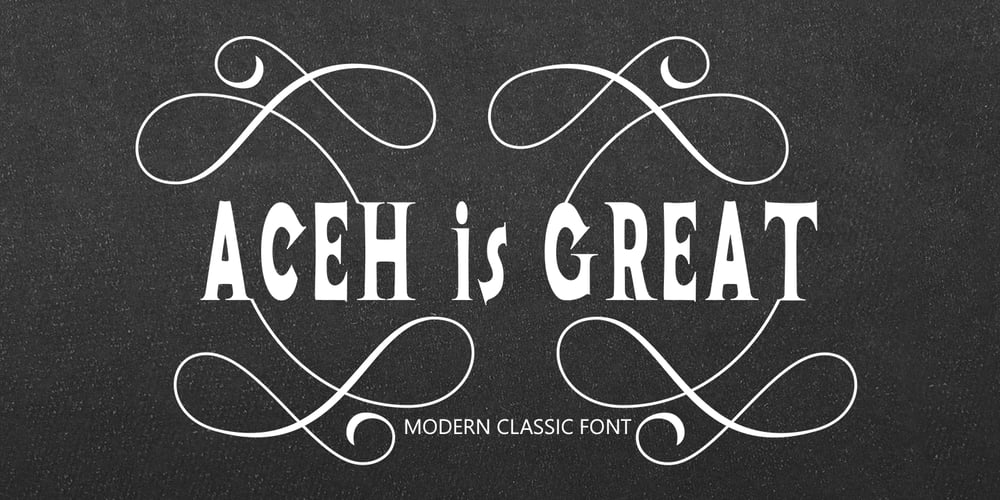
Aceh Is Great Font Family was designed by Teuku Saifullah and published by Shape Studio. Aceh Is Great contains 1 styles and family package options. Aceh Is Great attracts a typeface that is smooth, clean, unique, elegant, modern, serif, san serif, feminine, sensual, glamorous, simple and very easy to read. Classic style is very suitable to be applied in various formal forms such as invitations, labels, menus, logos, fashion, make up, stationery, letterpress, romantic novels, magazines, books, greeting/wedding cards, packaging, labels.